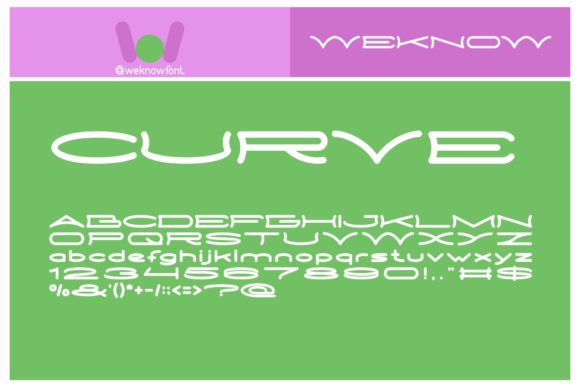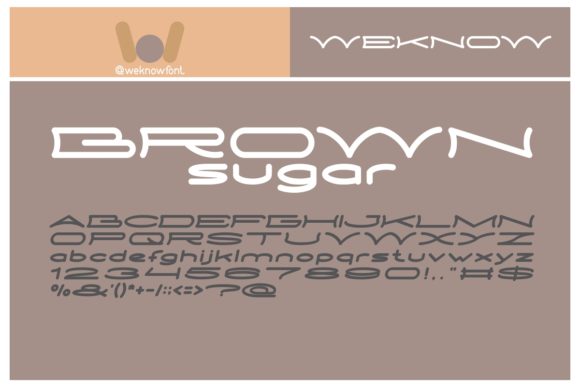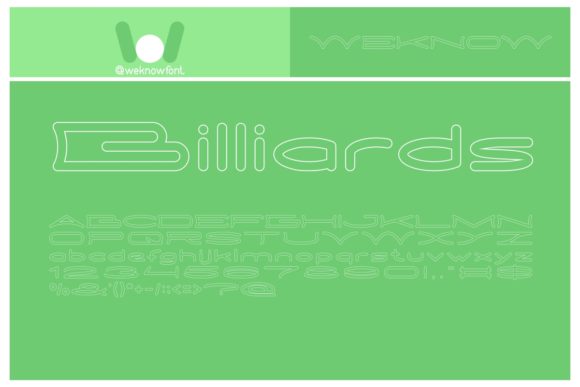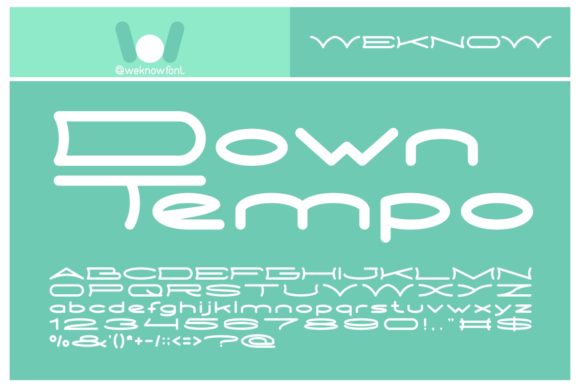
Metro City Font – Free Download
Introduction to Metro City Font
Metro City is a simple and minimalistic display font.
It can be used for various designs, such as those related to the apparel industry, for posters, magazine covers and so much more .
Key Features of Metro City Font
Why Choose Metro City Font?